Discover a collection of minimalist fonts crafted for simplicity, elegance, and timeless style. These typefaces are perfect for Scandinavian-inspired projects, neutral branding, editorial layouts, and designs that value clarity and subtle sophistication. Whether you're creating logos, packaging, websites, or social media graphics, these fonts bring a cozy, modern, and clean touch to your work.
Agilera Font
Agilera is an elegant Art Nouveau-inspired ligature font with flowing curves and high-contrast strokes. Its stylish, minimalist design is perfect for branding, fashion projects, posters, packaging, and eye-catching logos.
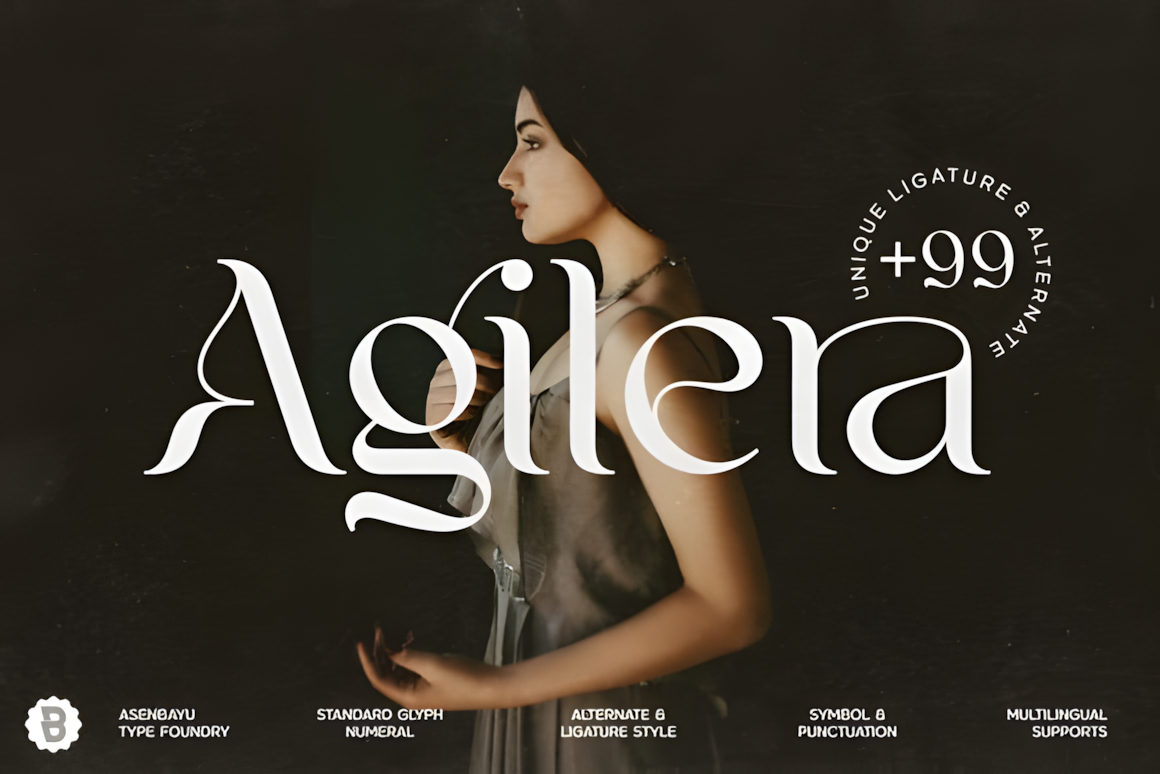
Monblock Font
Monblock is a bold, modern display font with a geometric style, perfect for headlines, logos, and branding. Its 80 ligatures, alternate glyphs, and futuristic design make it ideal for gaming, tech, and digital projects.
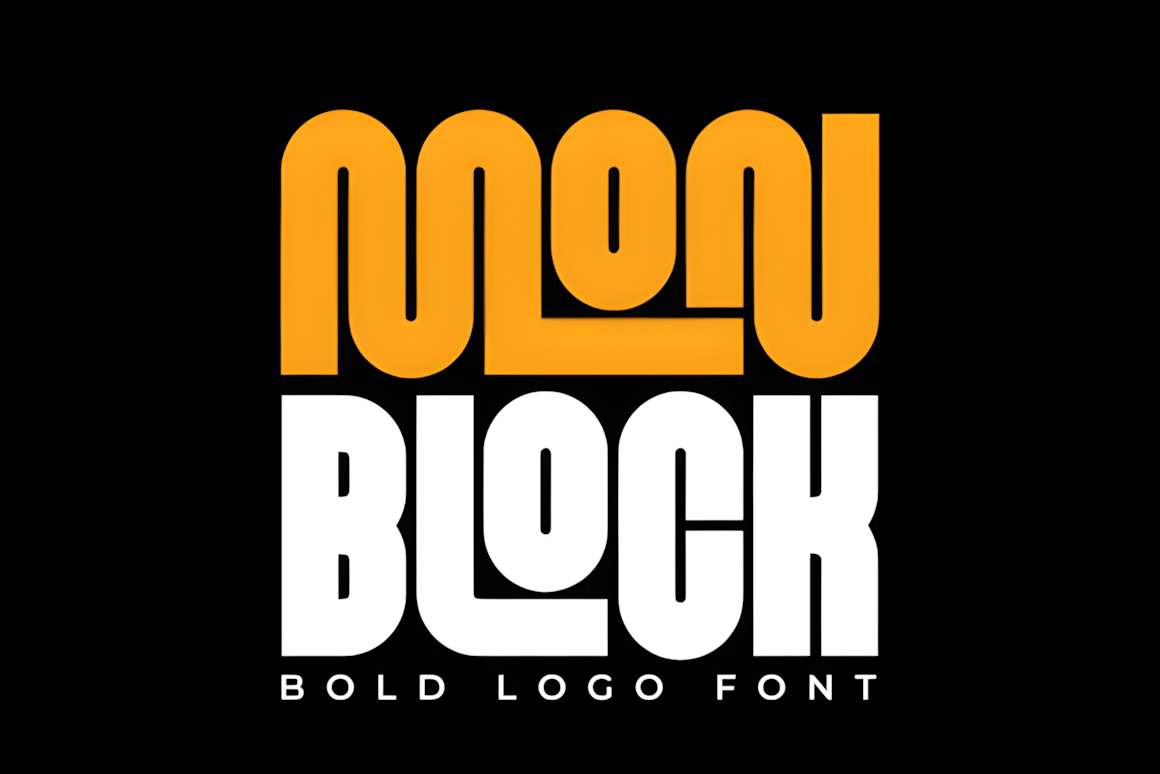
Voyage Font
Voyage is a casual sans-serif font with a natural, relaxed feel. Its clean lines make it ideal for friendly branding, invitations, and social media designs, adding approachable charm to any project.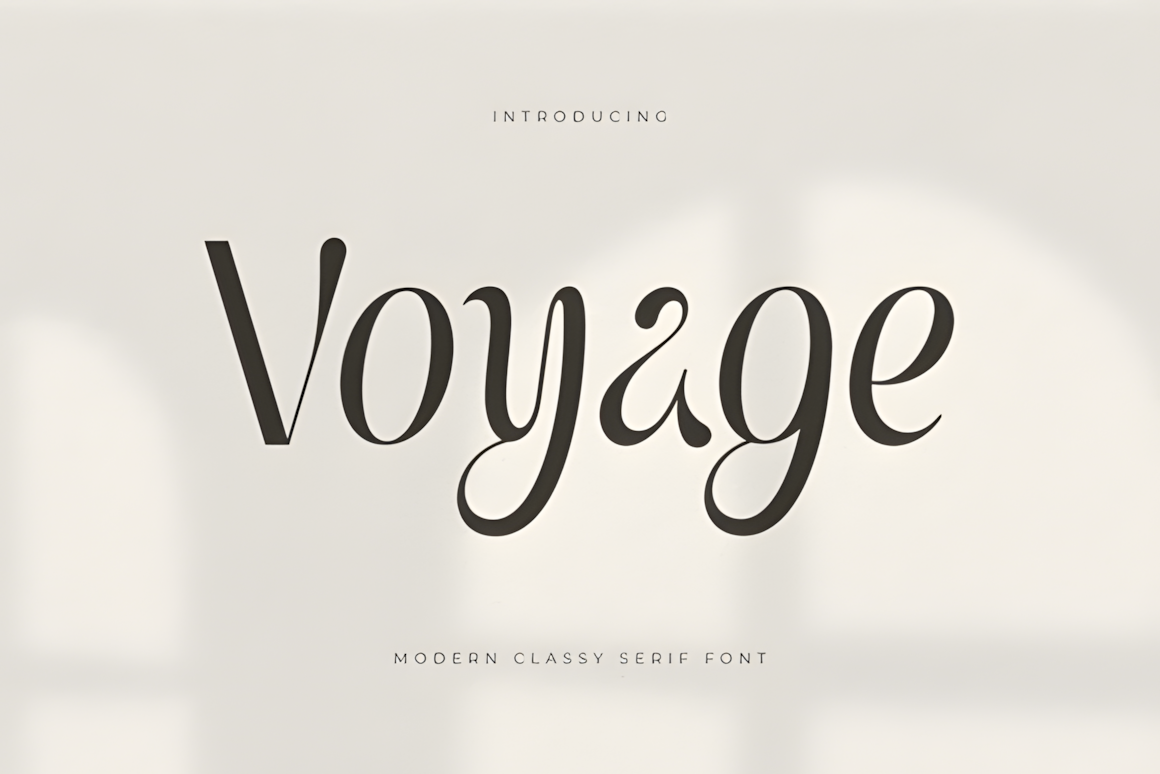
Krochy Font
KROCHY is a bold, geometric retro font with a 1970s-inspired style. Its thick strokes, rounded shapes, and playful letterforms give it a unique, custom look, making it perfect for eye-catching logos, posters, and vintage-inspired designs.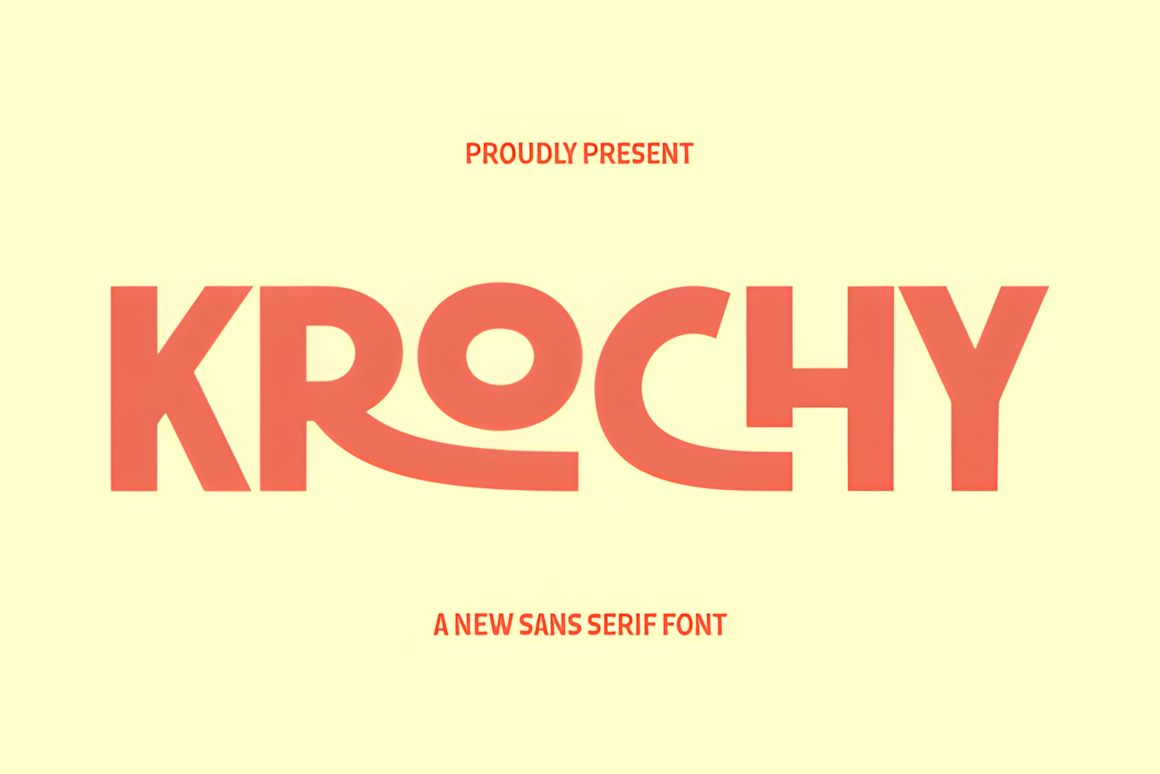
Ekgiero Font
EKGIERO is an elegant serif typeface designed for high-fashion and luxury branding. With its refined letterforms, comprehensive glyph set, and multilingual support, it’s perfect for logos, editorial design, packaging, and upscale identity projects.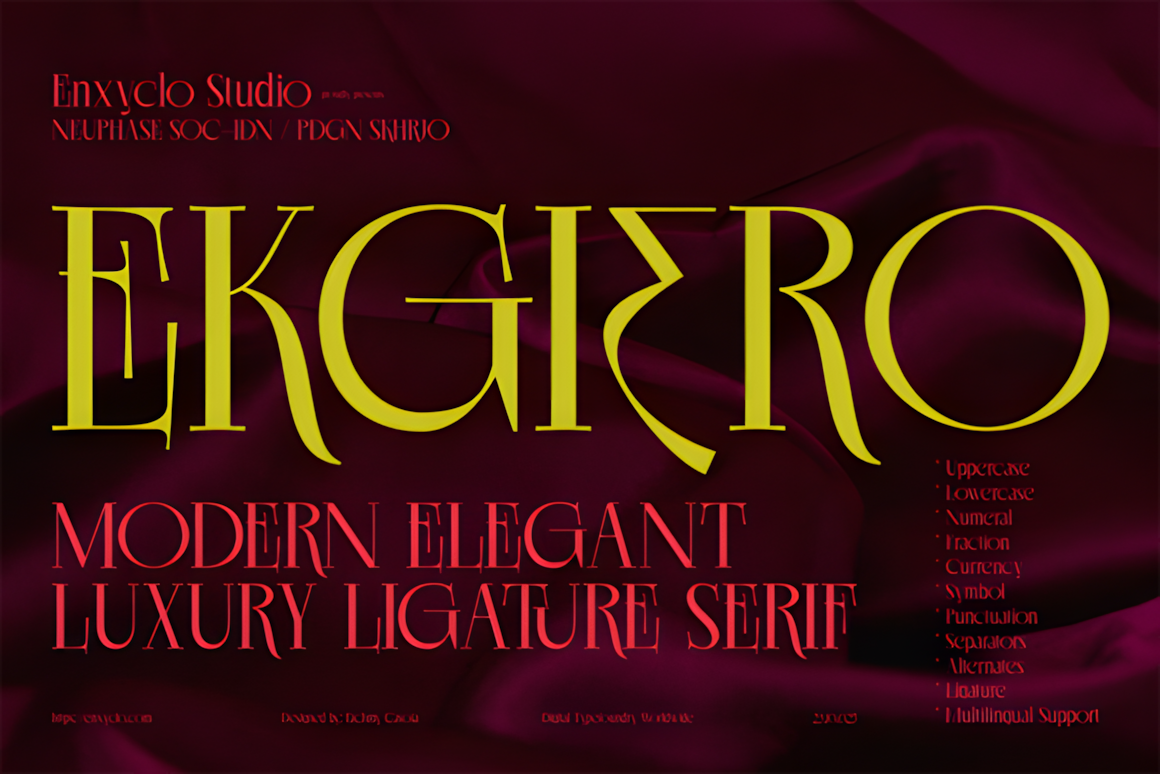
Regiko Font
Regiko is a modern sans-serif font with playful, distinctive curves that give it a memorable personality. Its bold, rounded shapes and unique details—like the looping lowercase ‘g’ and ‘y’—make it perfect for logos, branding, and any project that needs a clean yet custom feel.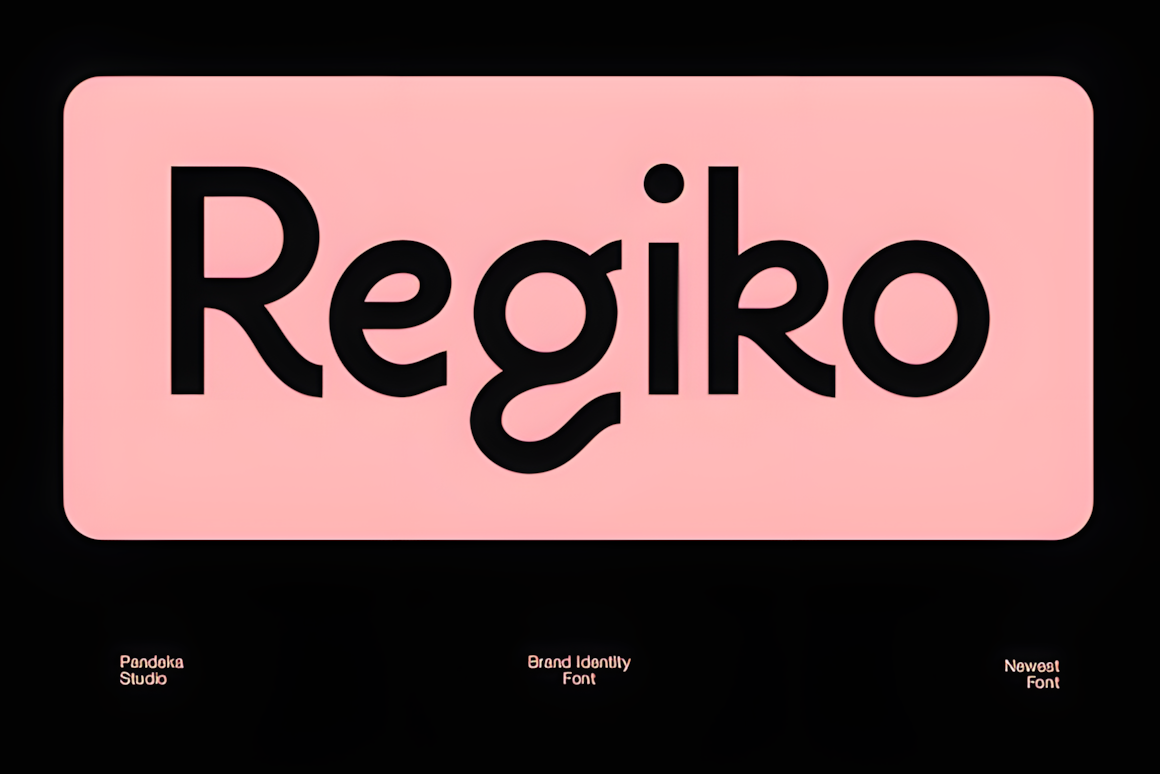
Kuta Font
Kuta is a sleek, modern serif font with a minimalist design, ideal for fashion, lifestyle, and luxury branding. Its refined elegance works perfectly for magazine covers, clothing labels, and high-end product designs, and pairs beautifully with clean sans-serifs or delicate scripts.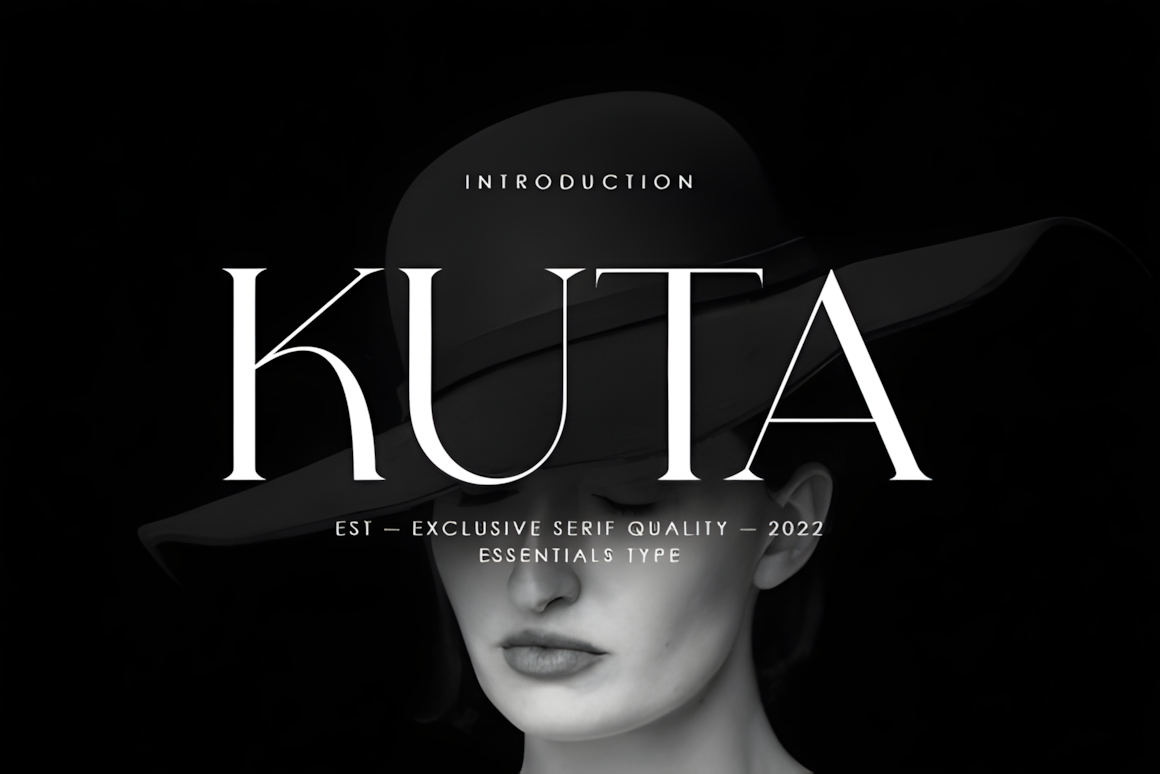
Bake & Brew Font
Bake & Brew is a bold, chunky sans-serif font with playful rounded shapes that balance fun and professionalism. Perfect for logos, bakery or café branding, social media, retro posters, and packaging, it features creative ligatures and alternates for a custom, eye-catching look.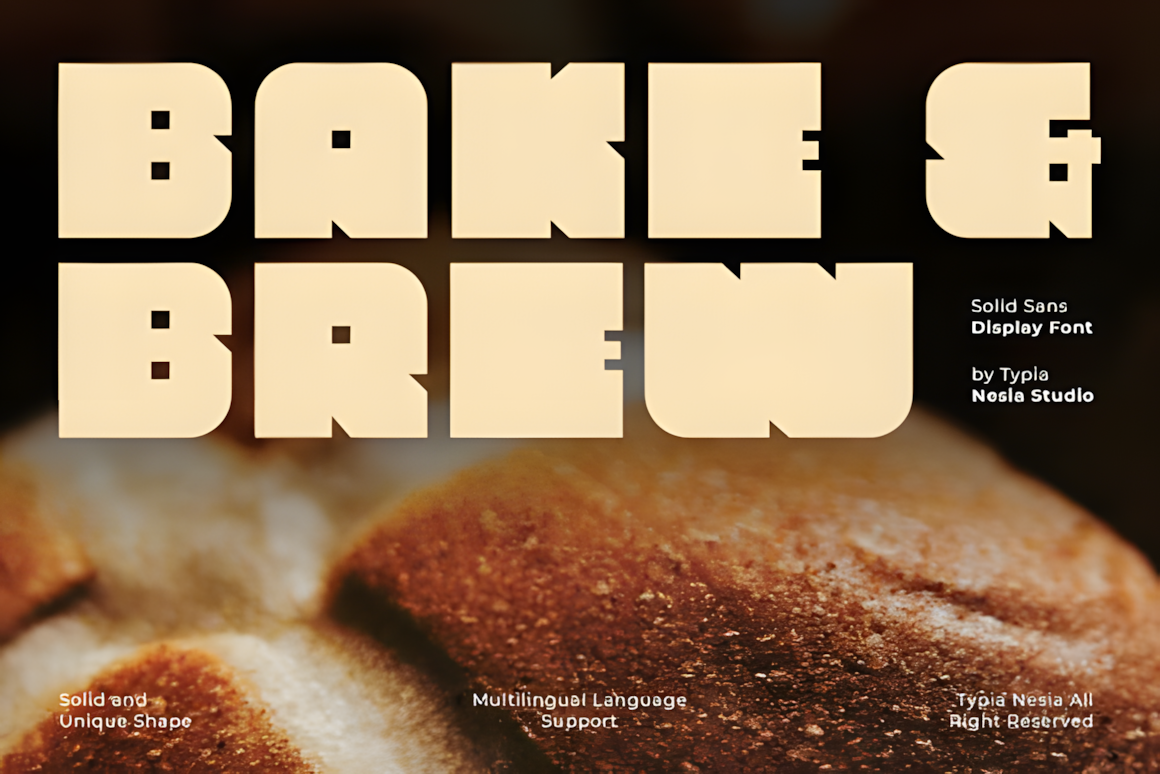
Morrison Font
Morrison is a luxurious serif font inspired by the decorative arts and architecture of the 1920s–30s. Combining sleek modernist elegance with vintage sophistication, it features refined ligatures and meticulously crafted letterforms, perfect for high-end branding, editorial design, and elegant display projects.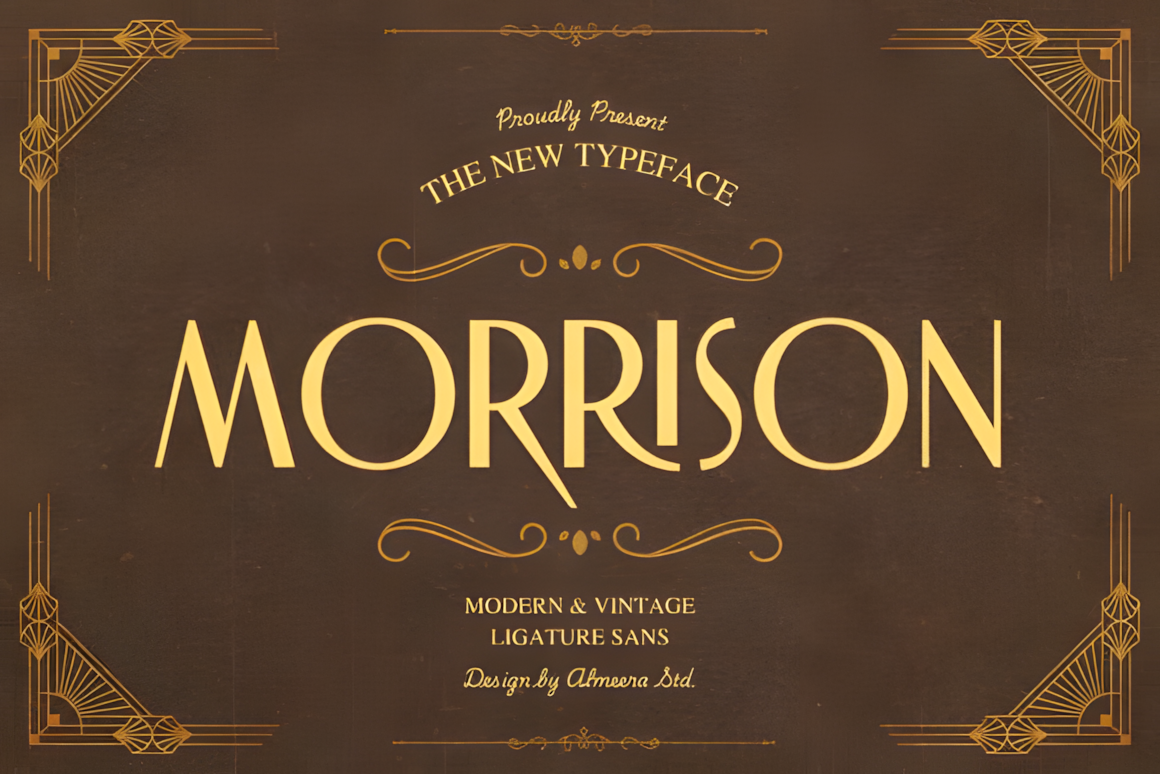
Czesko Font
Czesko is an elegant display serif with tall, refined letterforms and sophisticated contrast, ideal for luxury branding, fashion logos, magazines, or movie posters. Its tight spacing and vertical emphasis ensure readability even in compact layouts, while full multilingual support—including Latin, Cyrillic, diacritics, and ligatures—makes it versatile for global design projects.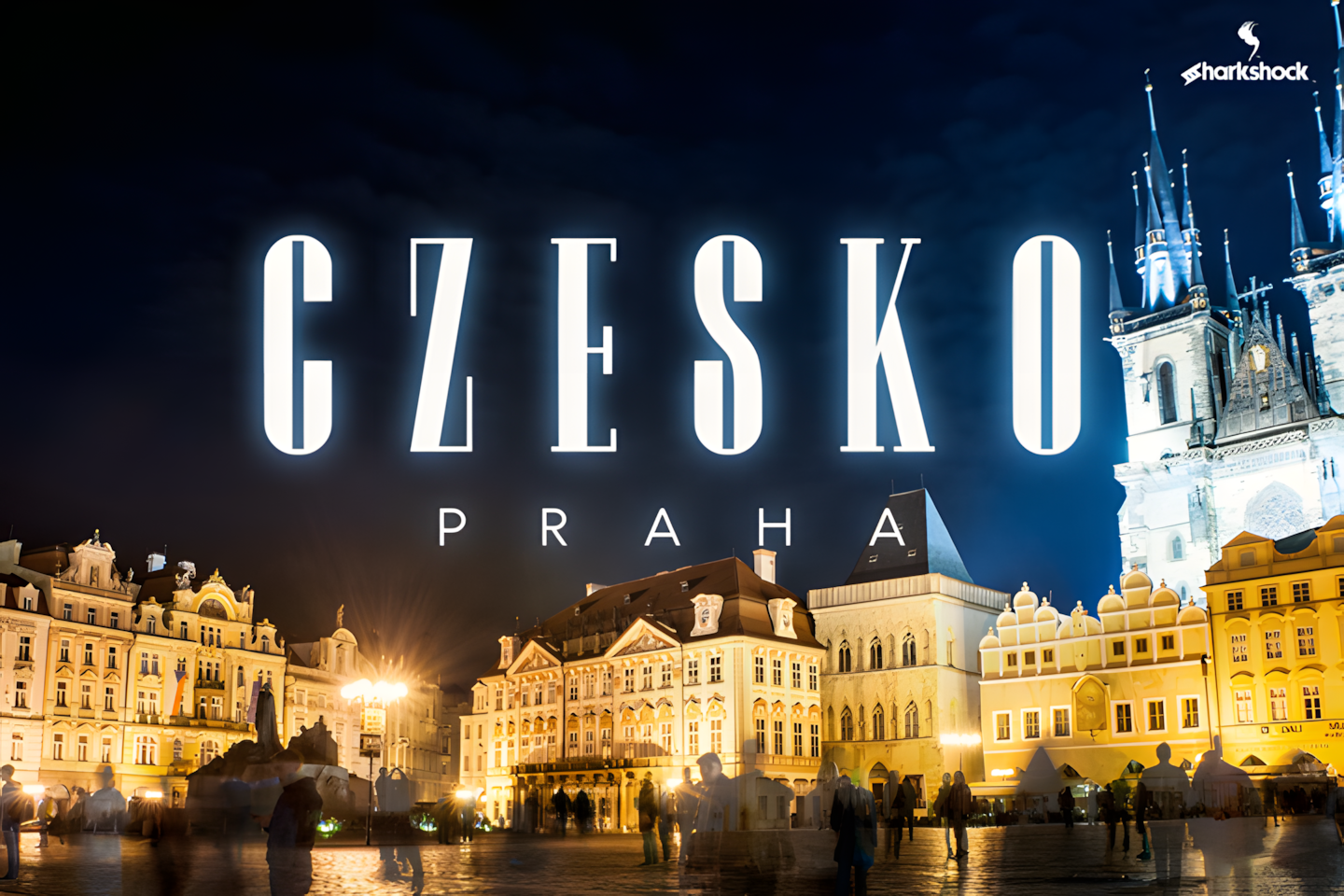
Clean Aesthetics & Cozy Appeal
This collection brings harmony, clarity, and understated elegance to your design projects. Minimalist fonts help your visuals communicate with calm, simplicity, and modern sophistication—perfect for anyone looking to create cozy, neutral, and stylish designs.